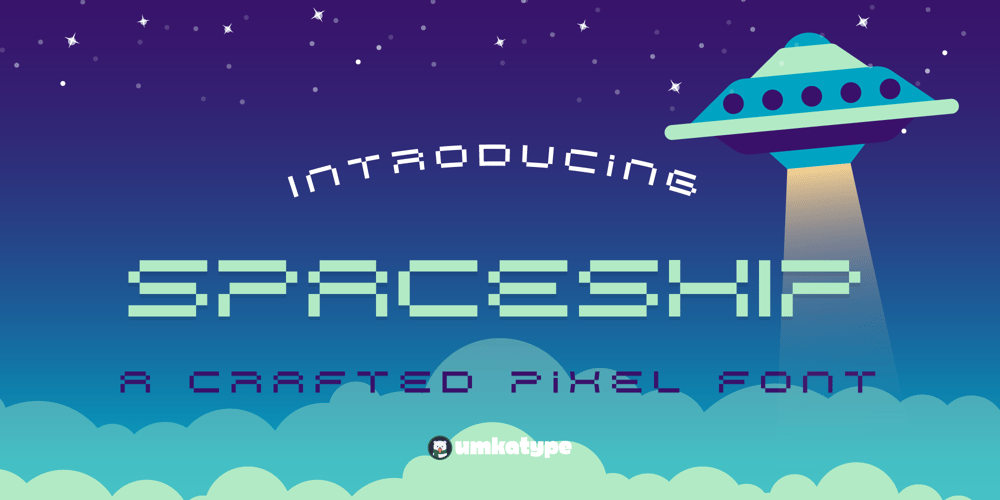
Spaceship
Spaceship font
Spaceship Font Family was designed by Alper Çakıcı and published by Umka Type. Spaceship contains 1 styles and family package options. Spaceship is a modern, elegant font with excellent kerning, making it ideal for both digital and print use. It features full support for the Cyrillic language, allowing for seamless multilingual communication. The font’s unique design combines classic proportions with a contemporary feel, making it stand out from other pixel fonts.